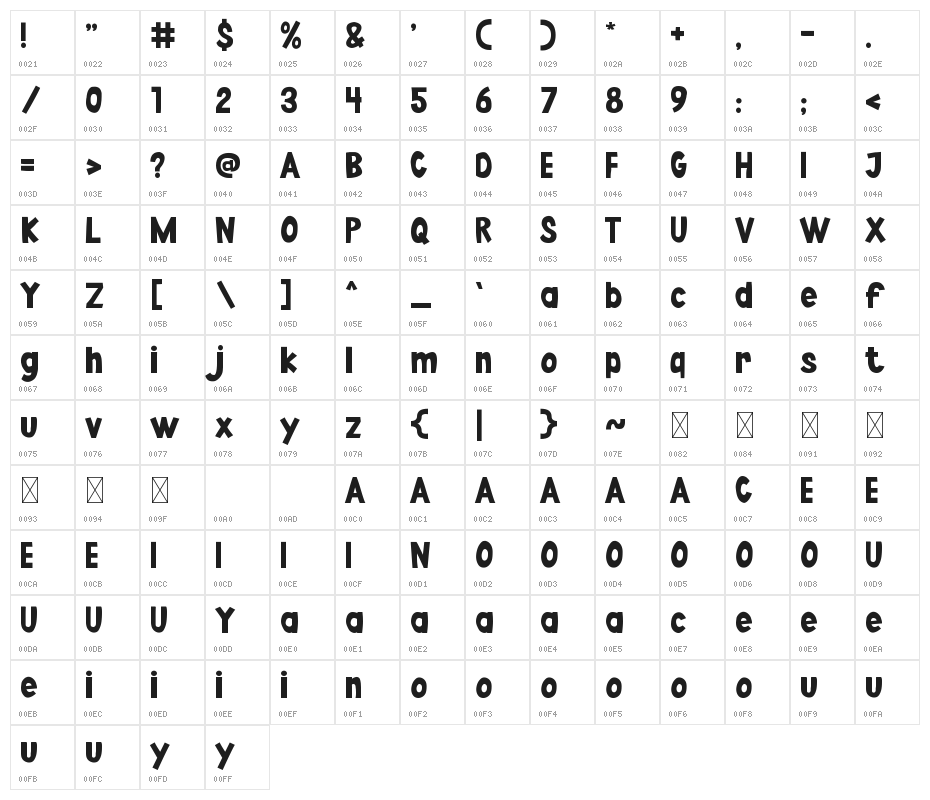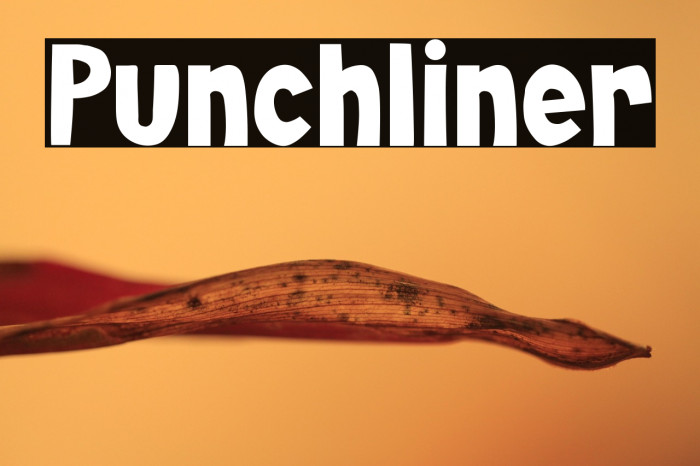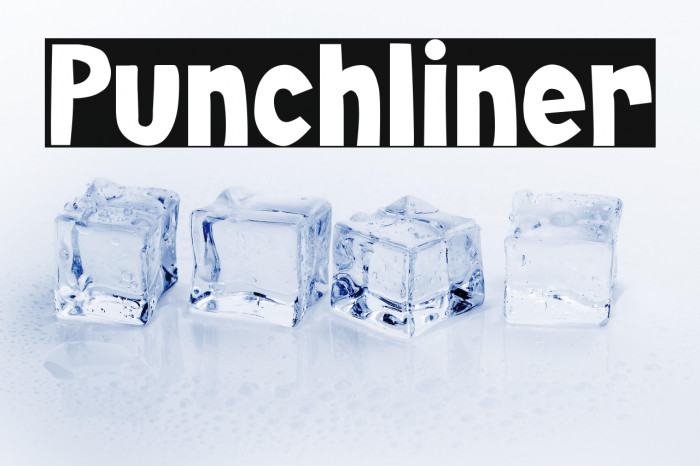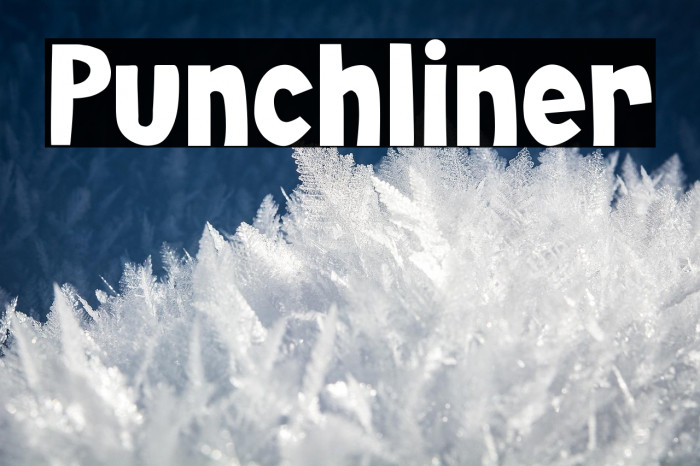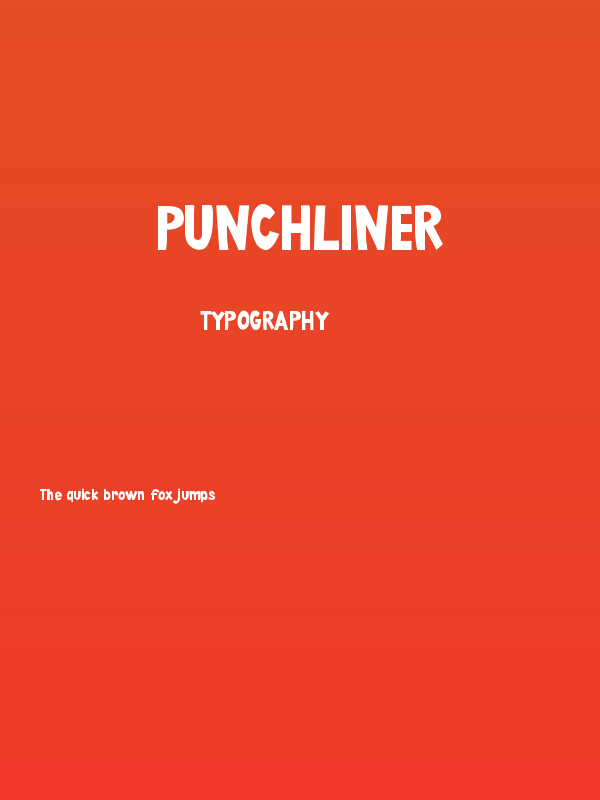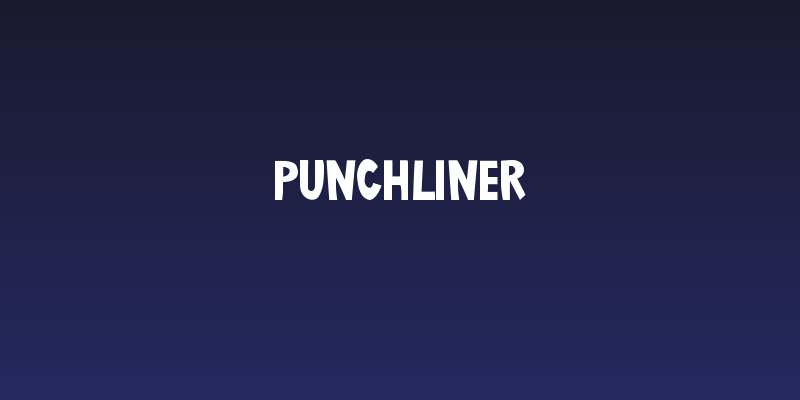
Punchliner Font
This font features bold, playful characters with a slightly irregular baseline, giving it a lively and informal appearance. The uppercase letters are robust and dynamic, while the lowercase letters maintain a consistent, rounded style that complements the uppercase. The numbers are bold and easily readable, matching the overall aesthetic. Special characters are designed with the same playful touch, ensuring consistency across all glyphs. The font's thick strokes and rounded edges contribute to its friendly and approachable feel, making it suitable for a variety of creative applications.
| Overall Style | Playful, Informal |
| Proposed Projects | Ideal for children's books, comic strips, playful branding, and eye-catching headlines. |